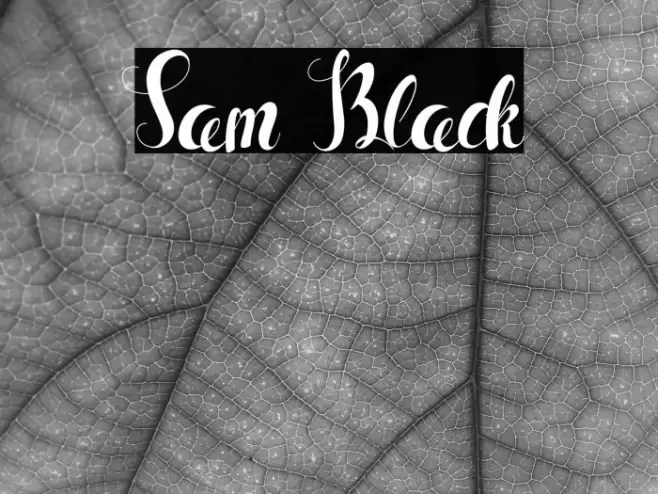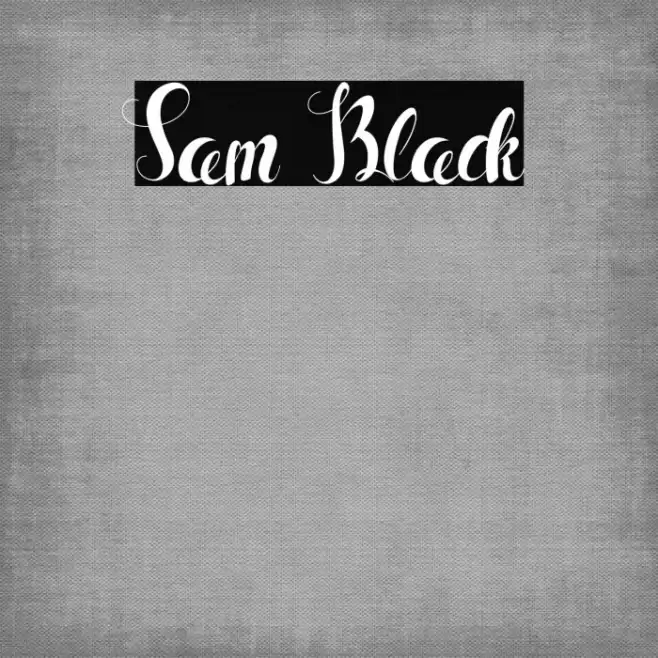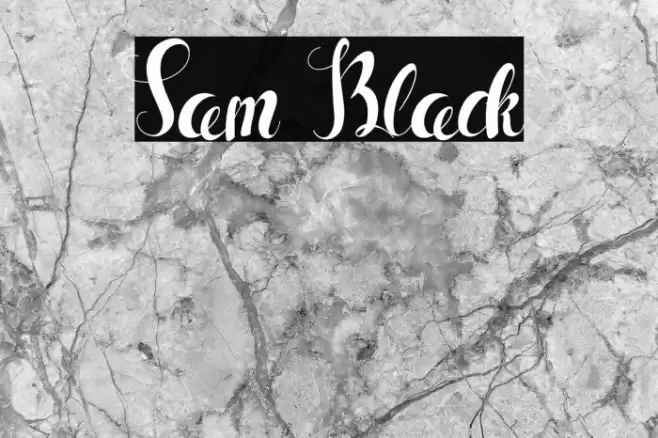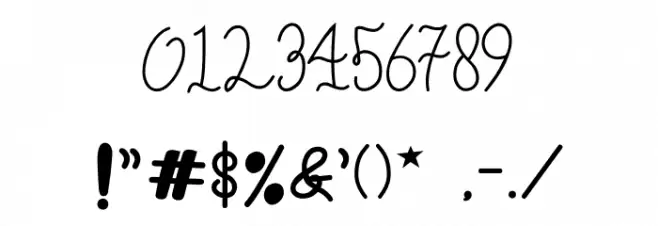
Sam Black Font
Sam Black Description
This font features an elegant and flowing script style, characterized by its intricate swirls and flourishes. The uppercase letters are particularly ornate, with sweeping curves that give a sense of movement and grace. The lowercase letters maintain a consistent style, offering a harmonious blend of readability and decorative flair. The numerals are slender and maintain the script's overall aesthetic, while the special characters are thoughtfully designed to match the font's sophisticated appearance. This font exudes a sense of luxury and refinement, making it ideal for projects that require a touch of elegance.
An elegant, flowing script font with intricate swirls and flourishes from Uncategorized fonts.
- Proposed Projects: Ideal for wedding invitations, luxury branding, greeting cards, and elegant packaging.
- Use Case: Logos, Invitations, Decorative text